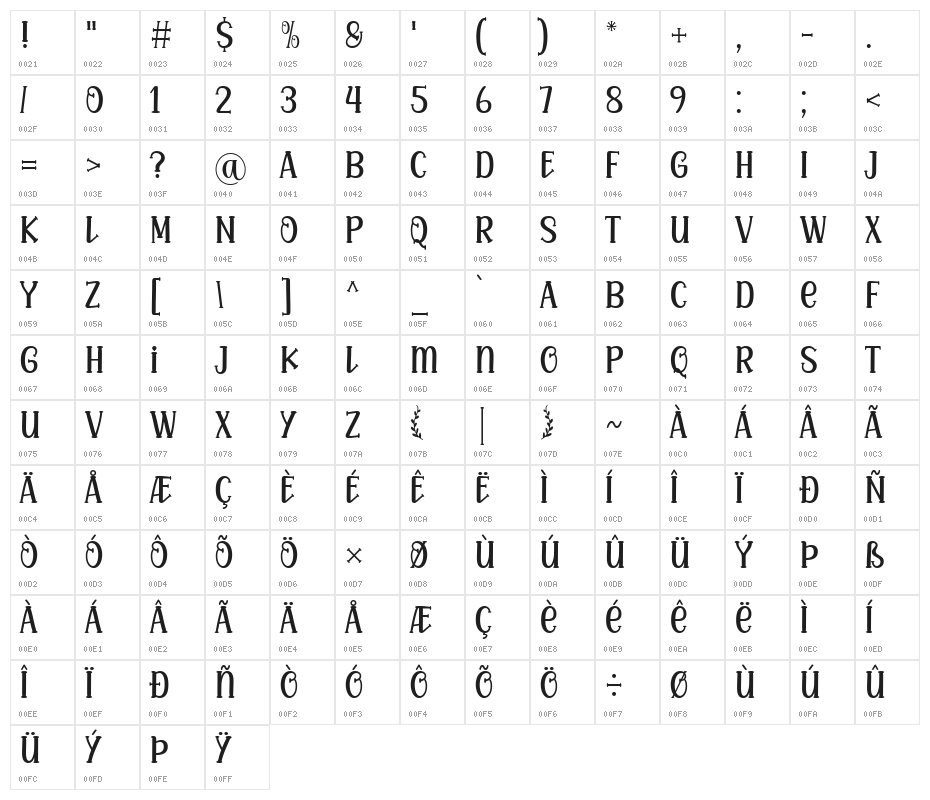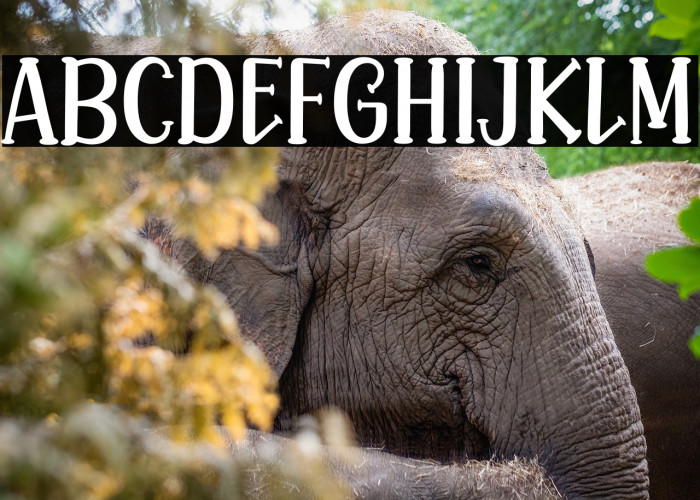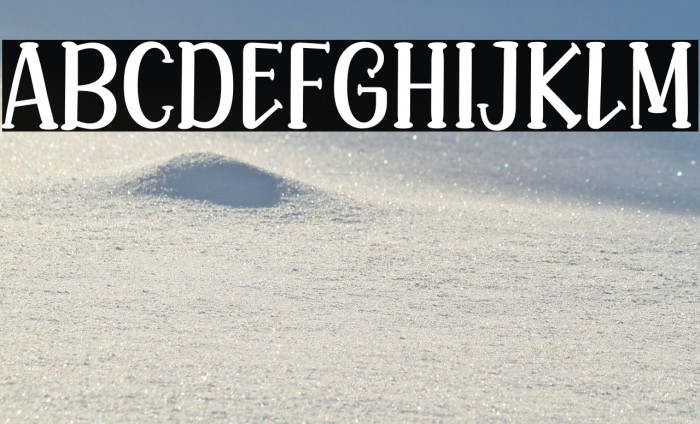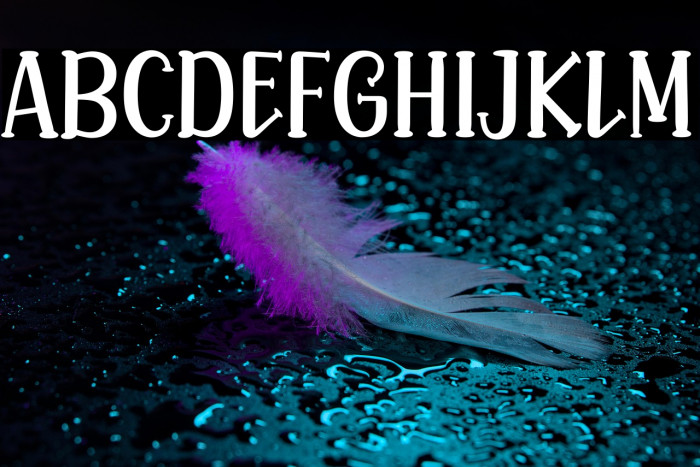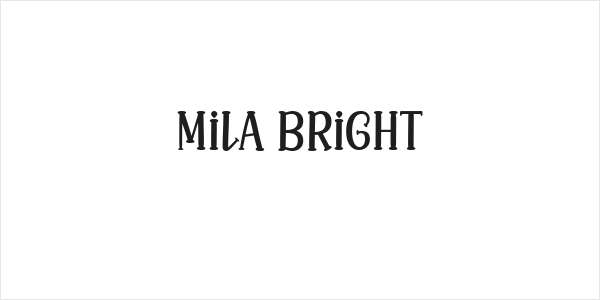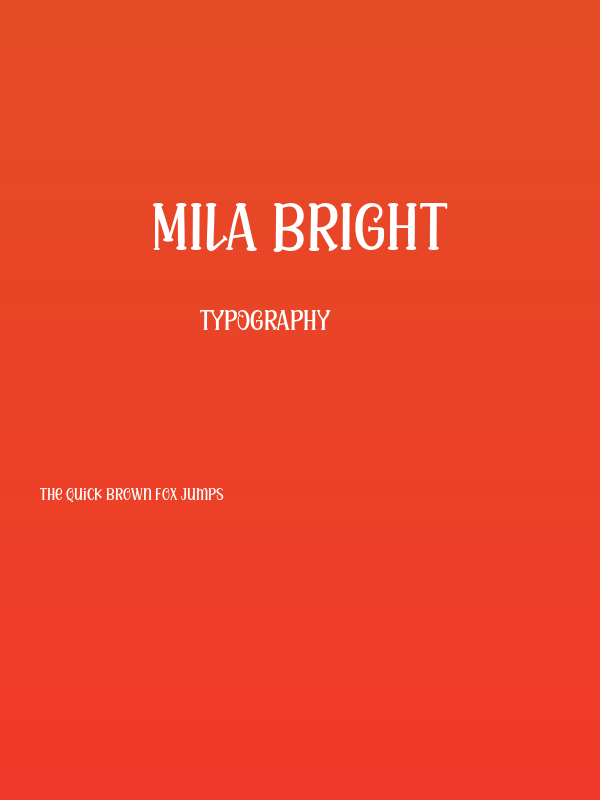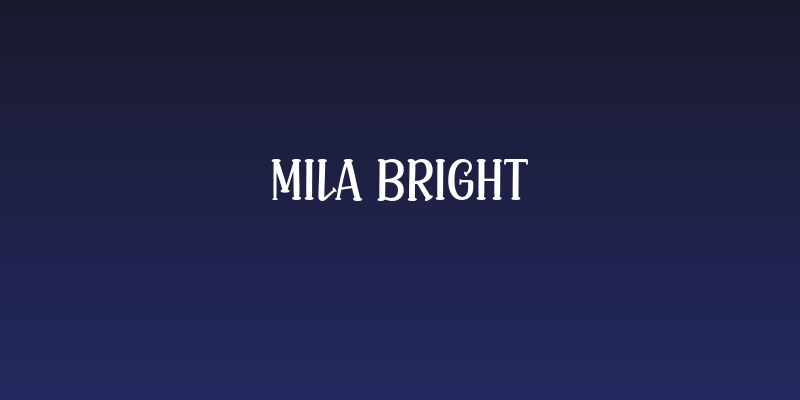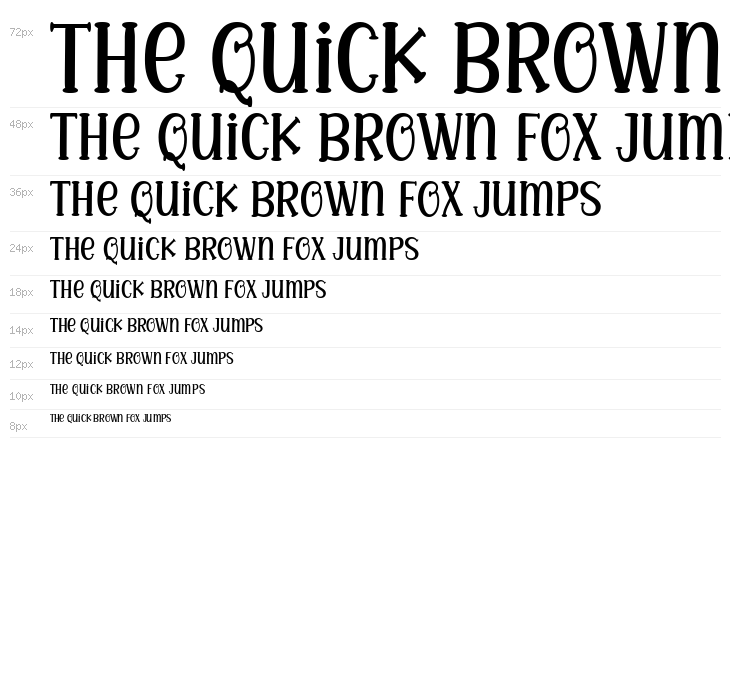
Mila Bright Font
Mila Bright Description
This font features a playful and decorative style with a unique blend of curves and sharp edges. The uppercase letters are bold and slightly condensed, giving them a strong presence. The lowercase letters maintain a consistent style, with a whimsical flair that adds character. Numbers are clear and easy to read, while special characters are designed to match the overall aesthetic. The font's design is both modern and vintage, making it versatile for various creative projects.
| Overall Style | Modern Vintage |
| Proposed Projects | Ideal for branding, posters, invitations, and creative design projects that require a touch of whimsy. |